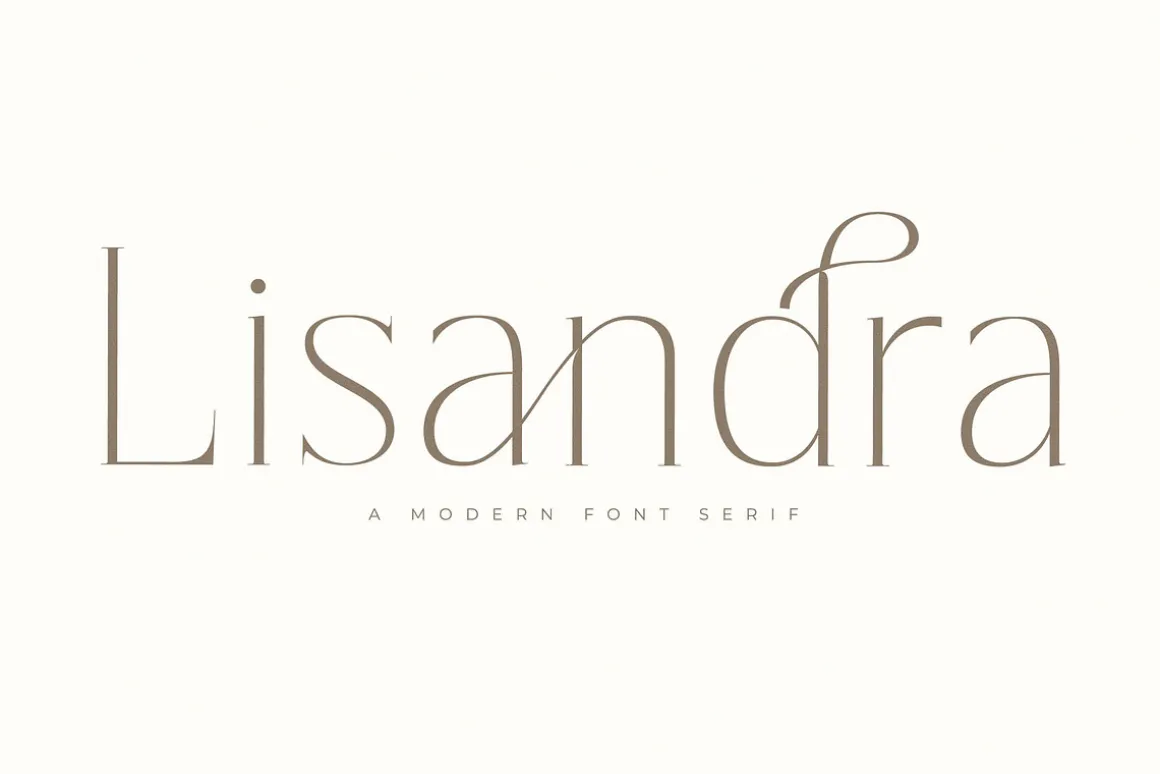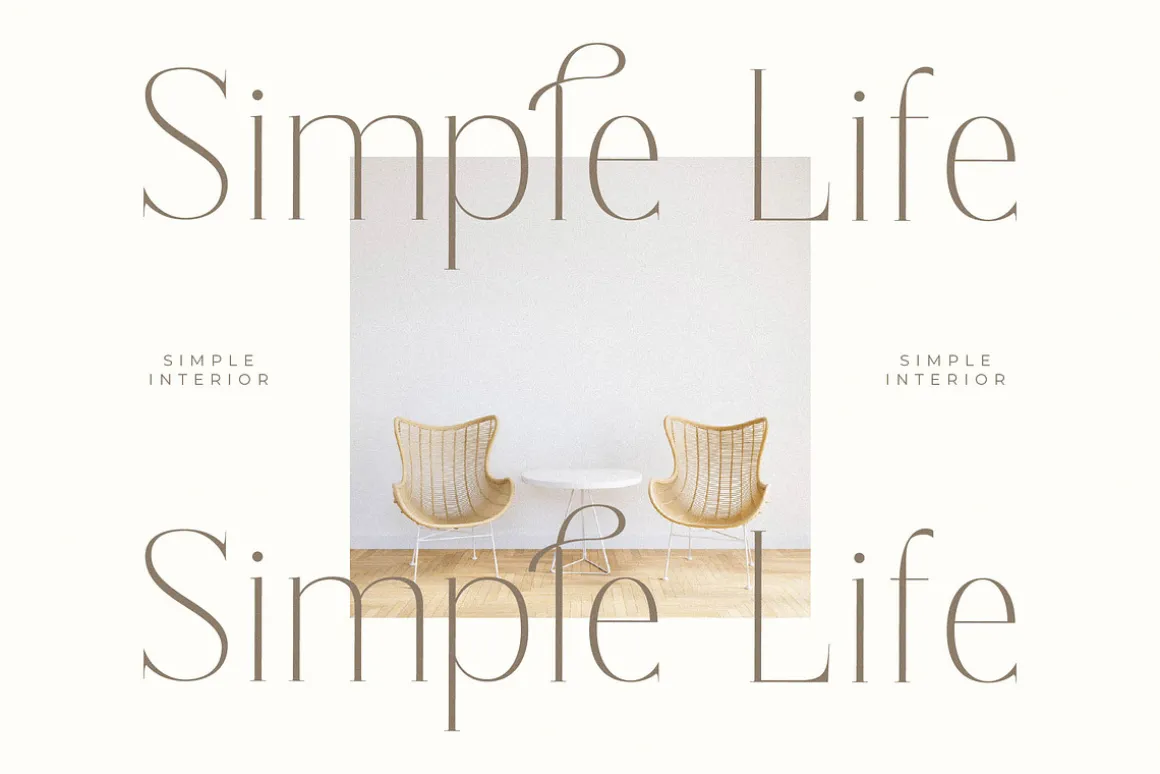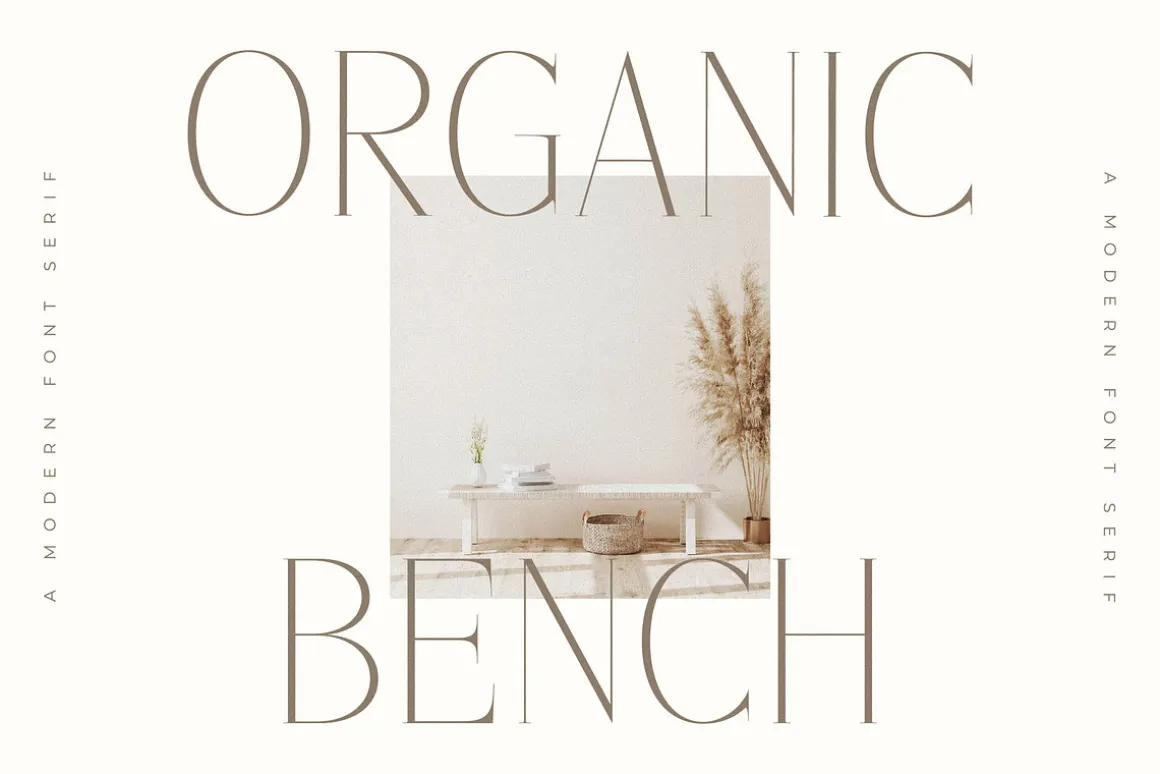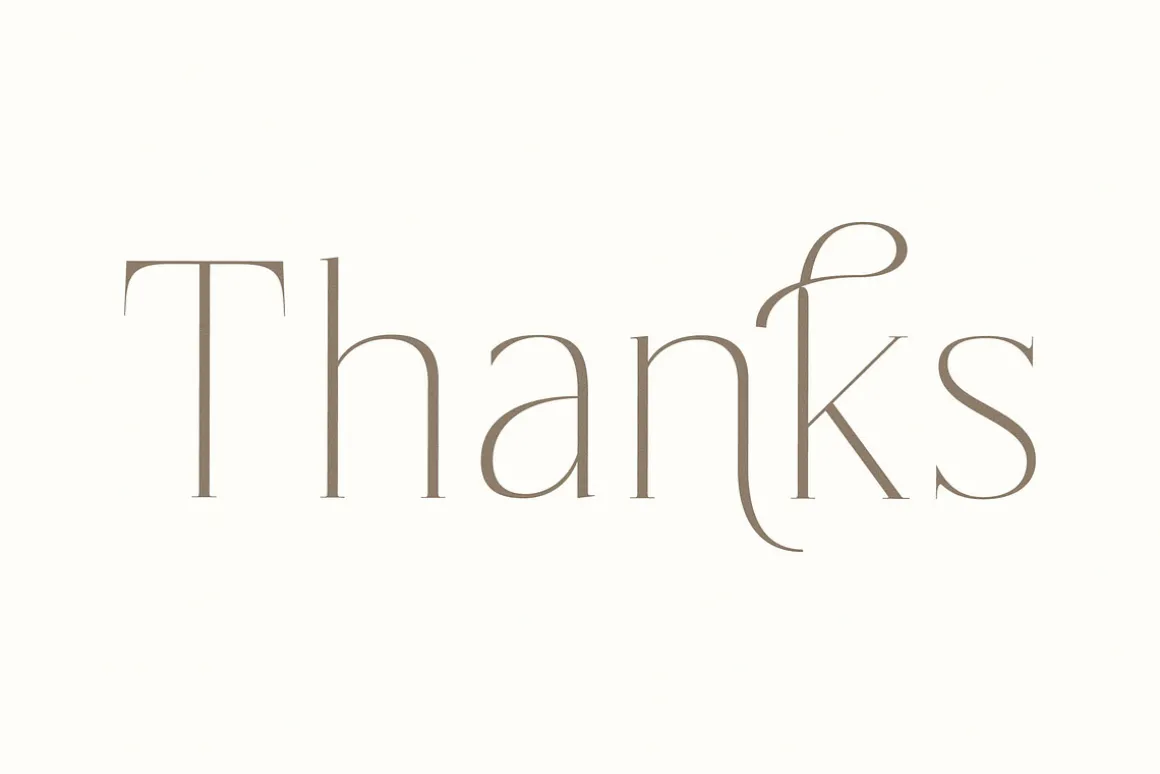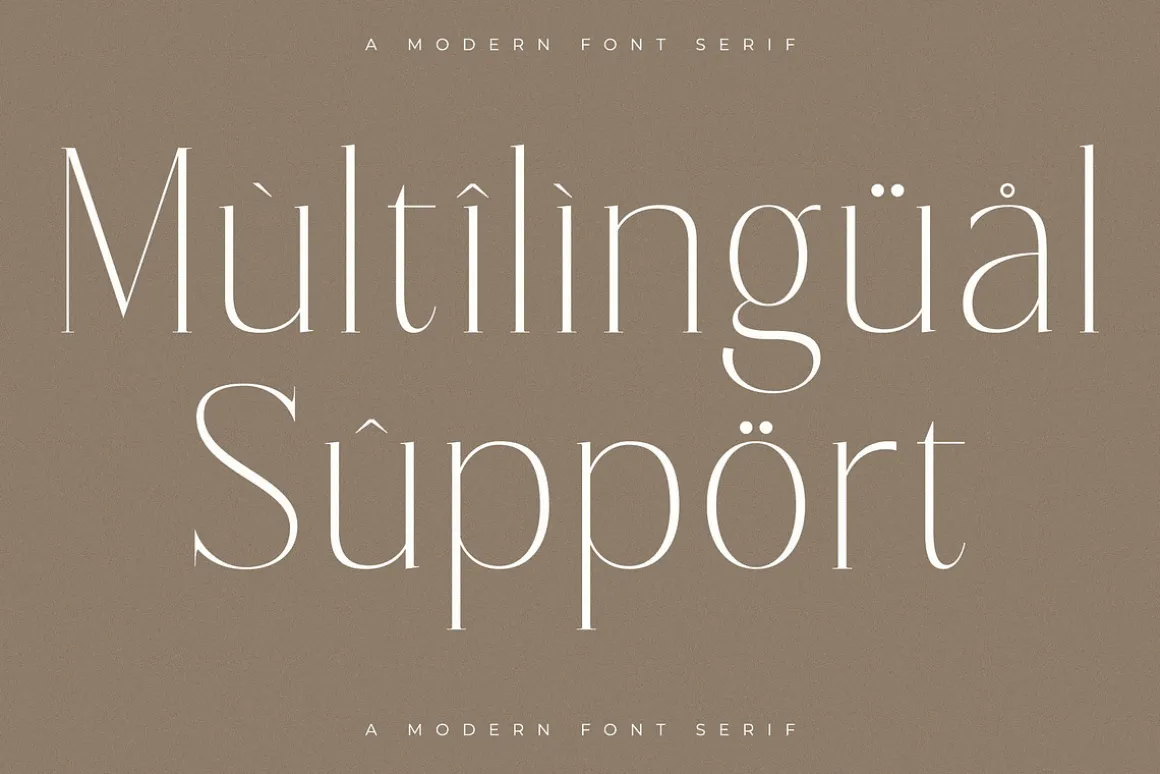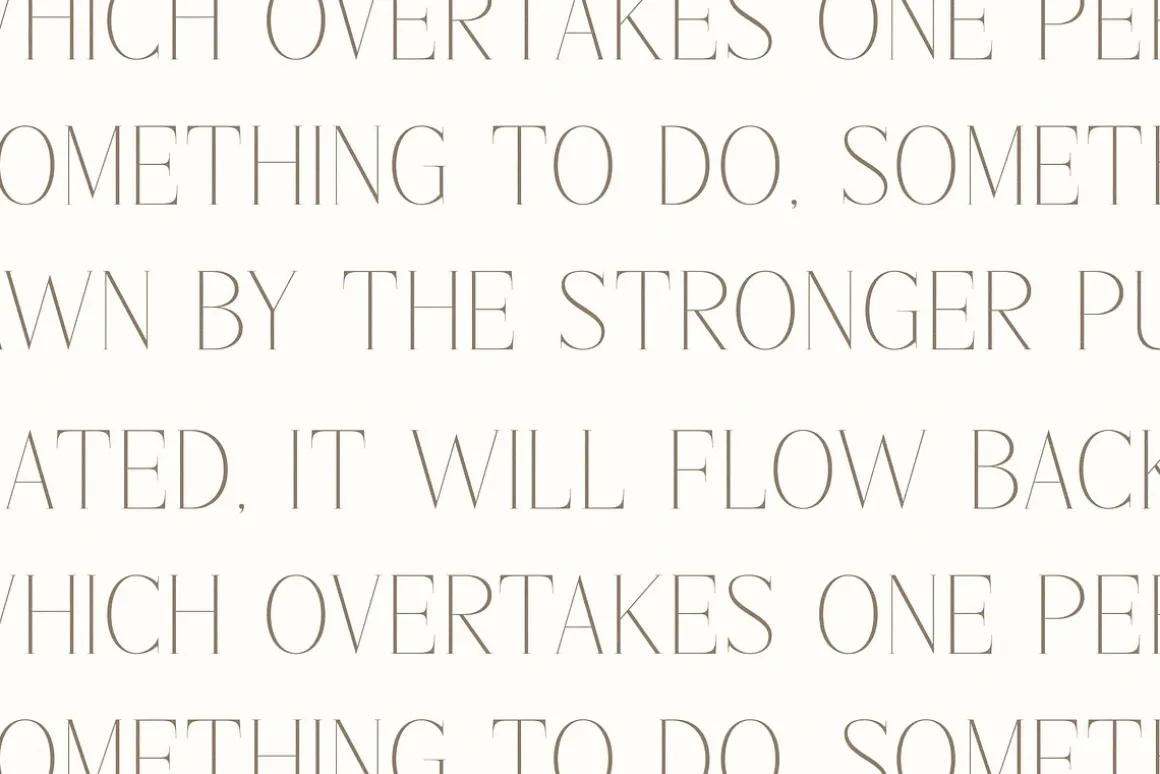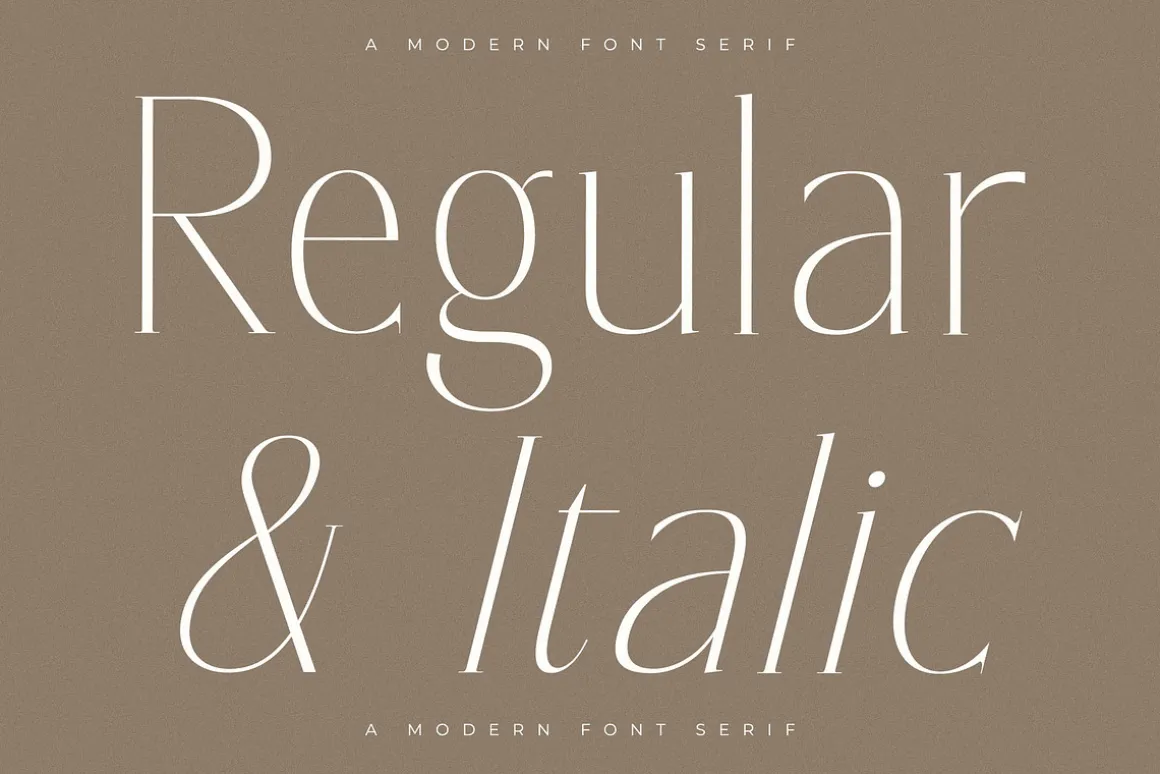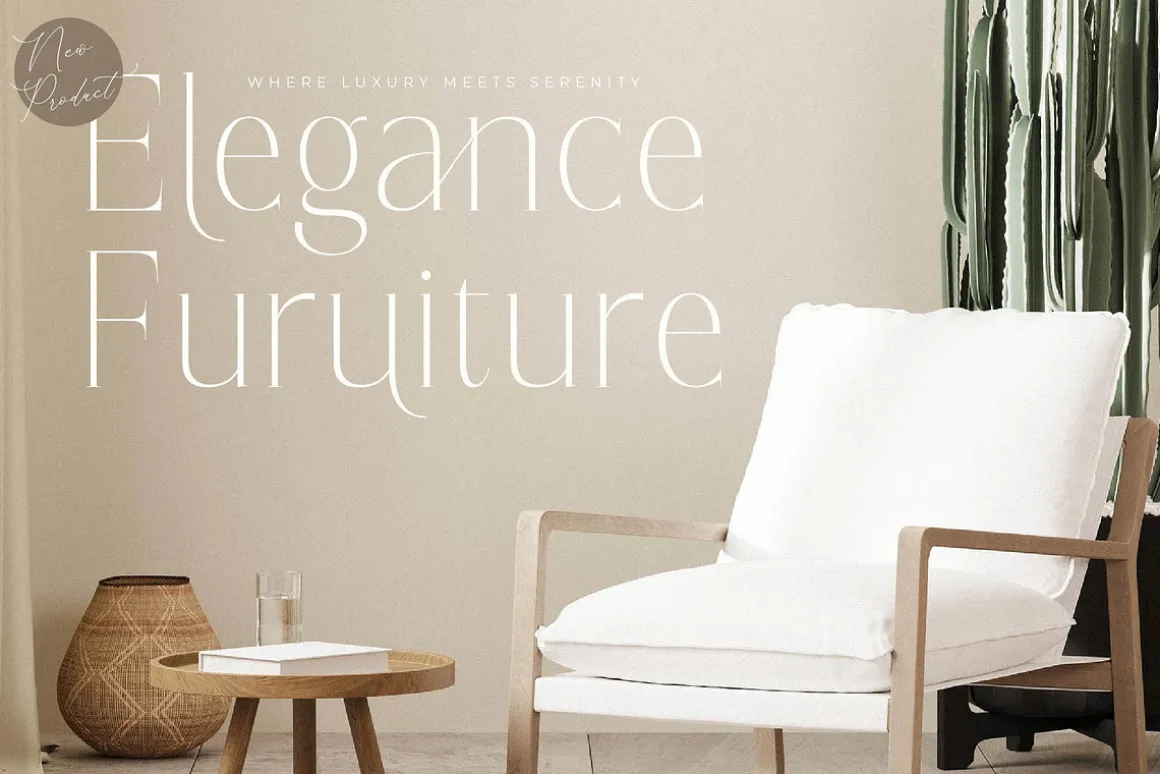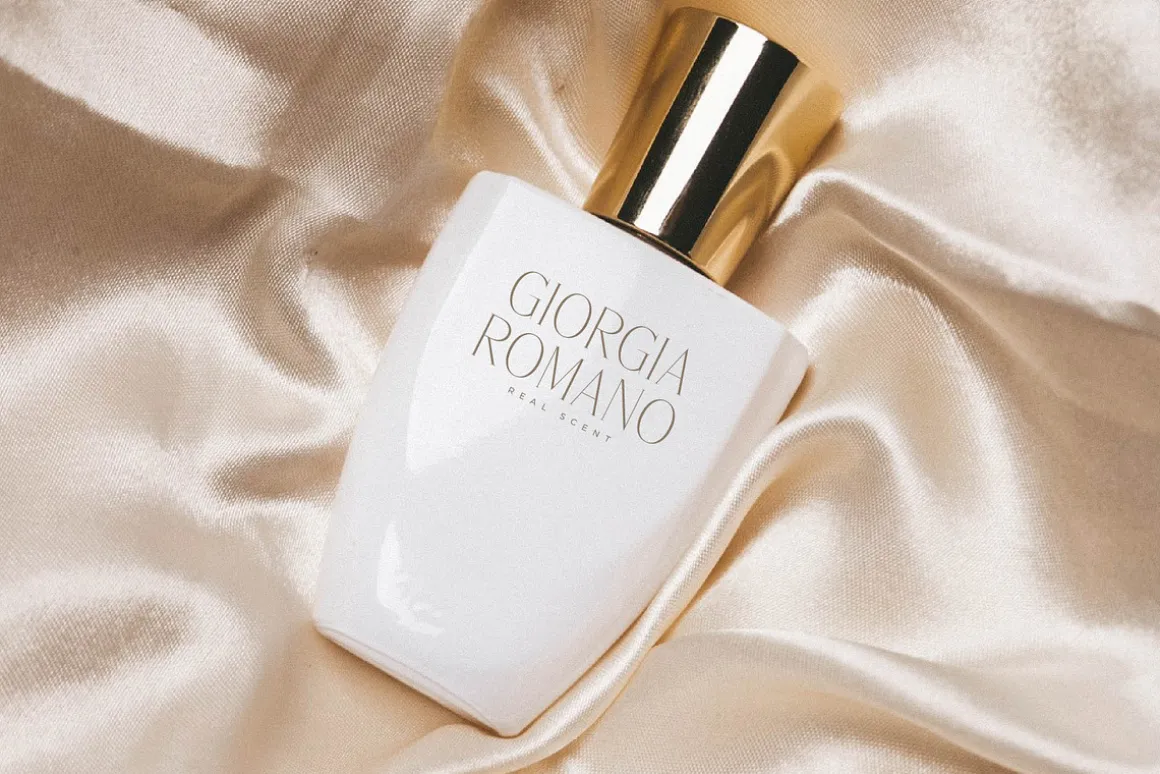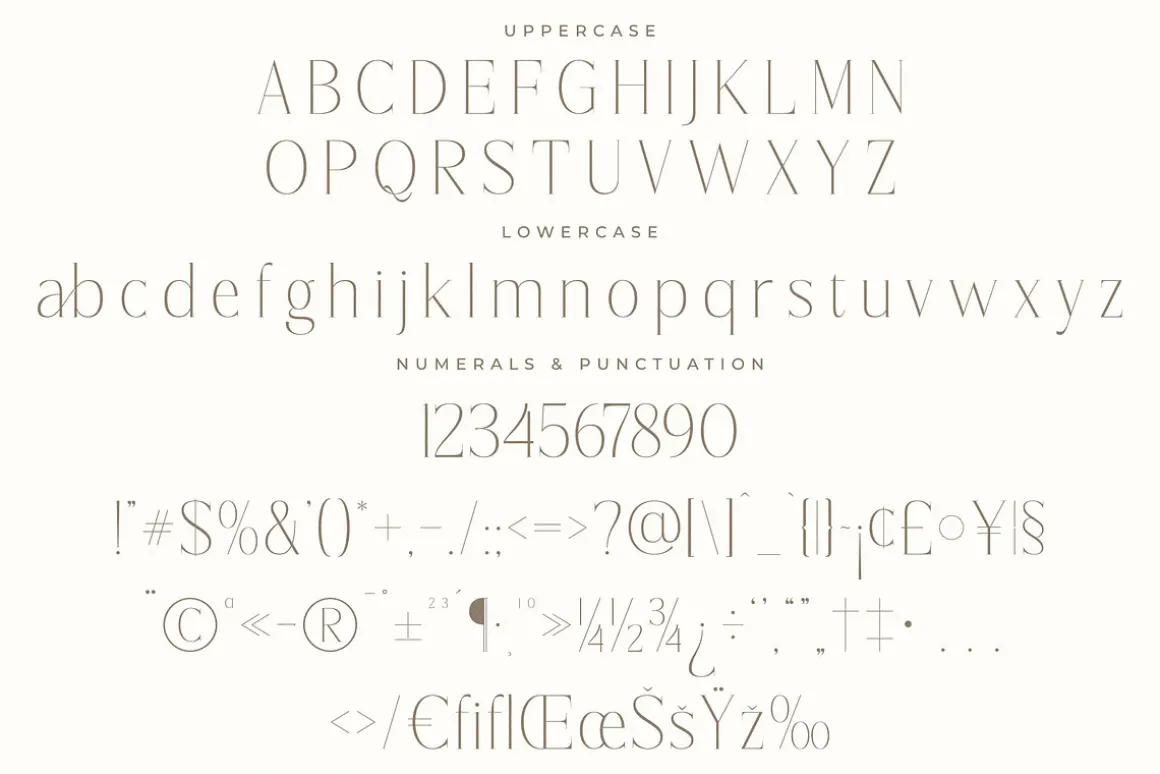
Proudly present Lisandra Typeface , created by Storytype,A serif modern and classic typeface that has own unique style & modern look.This typeface is perfect for an elegant & luxury logo, book or movie title design, fashion brand, magazine, clothes, lettering, quotes, and so much more.
- Uppercase and Lowercase
- Numerals
- Punctuations (OpenType Standard)
- Accents (Multilingual Characters)
- Ligatures and Alternative Style Stylistic Set